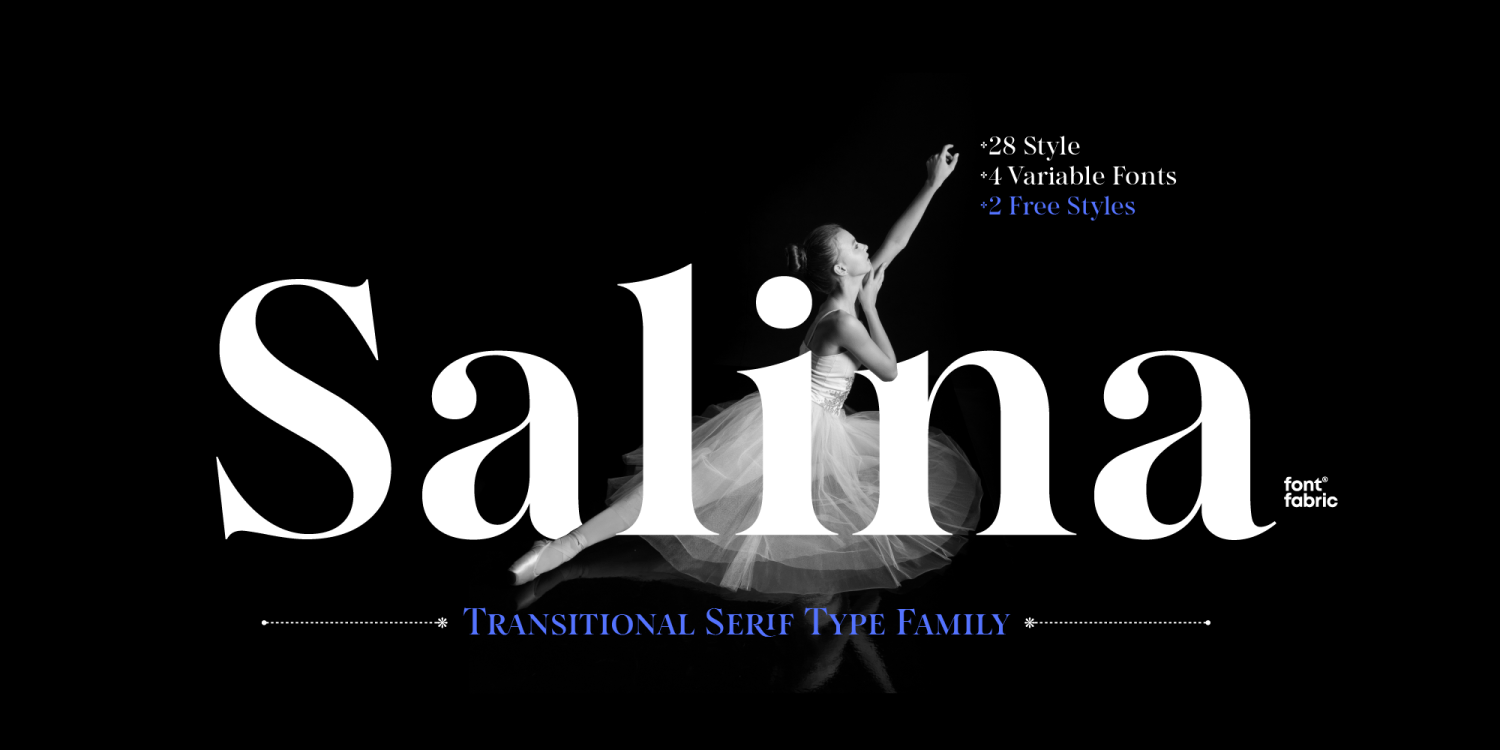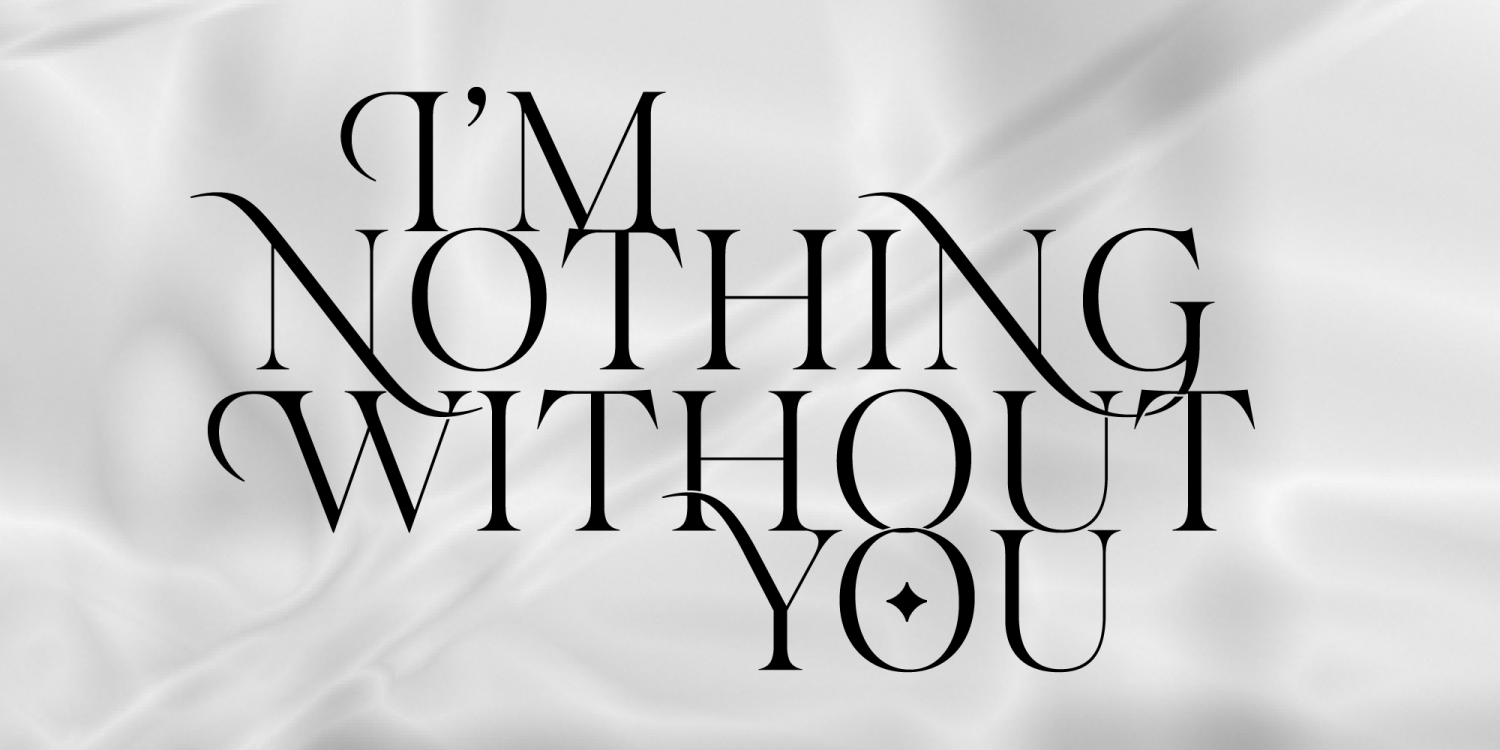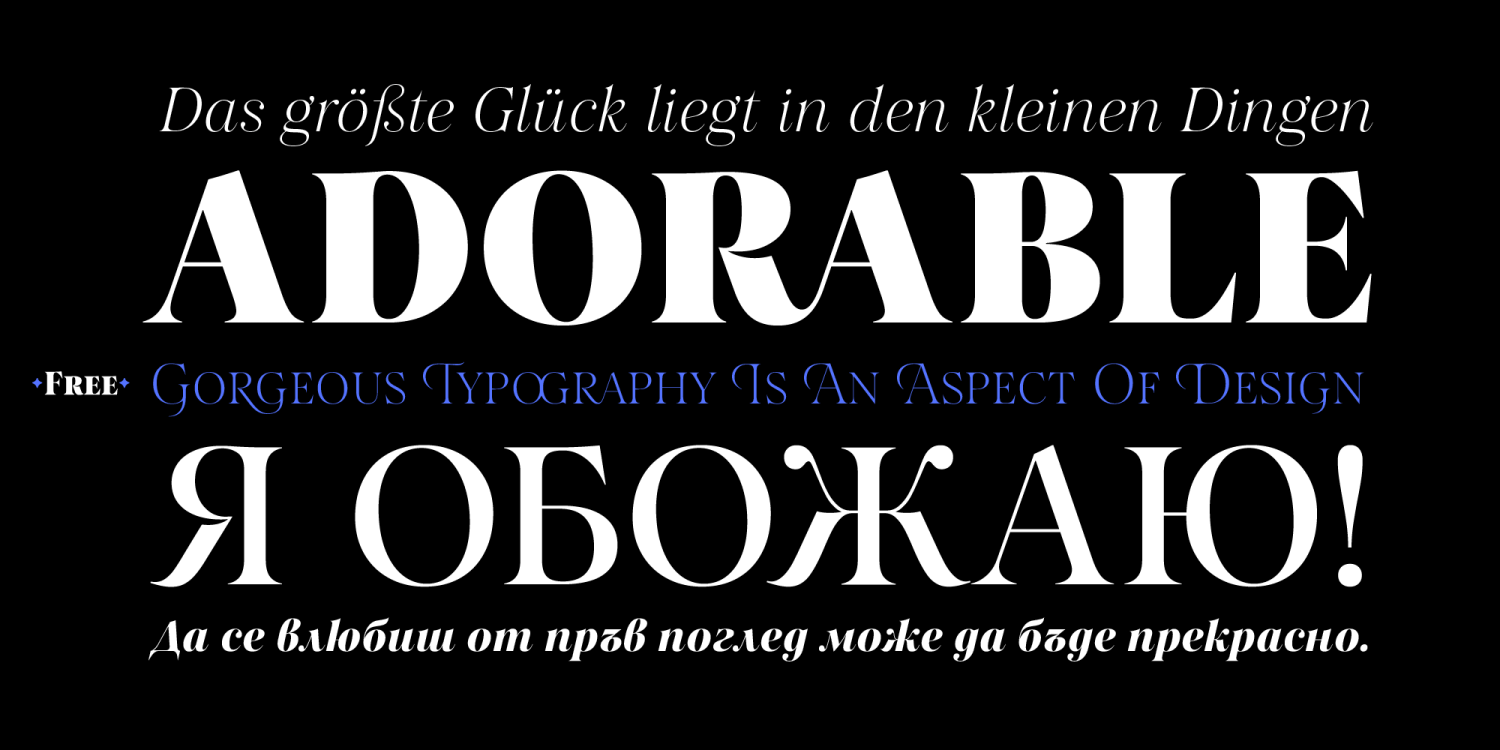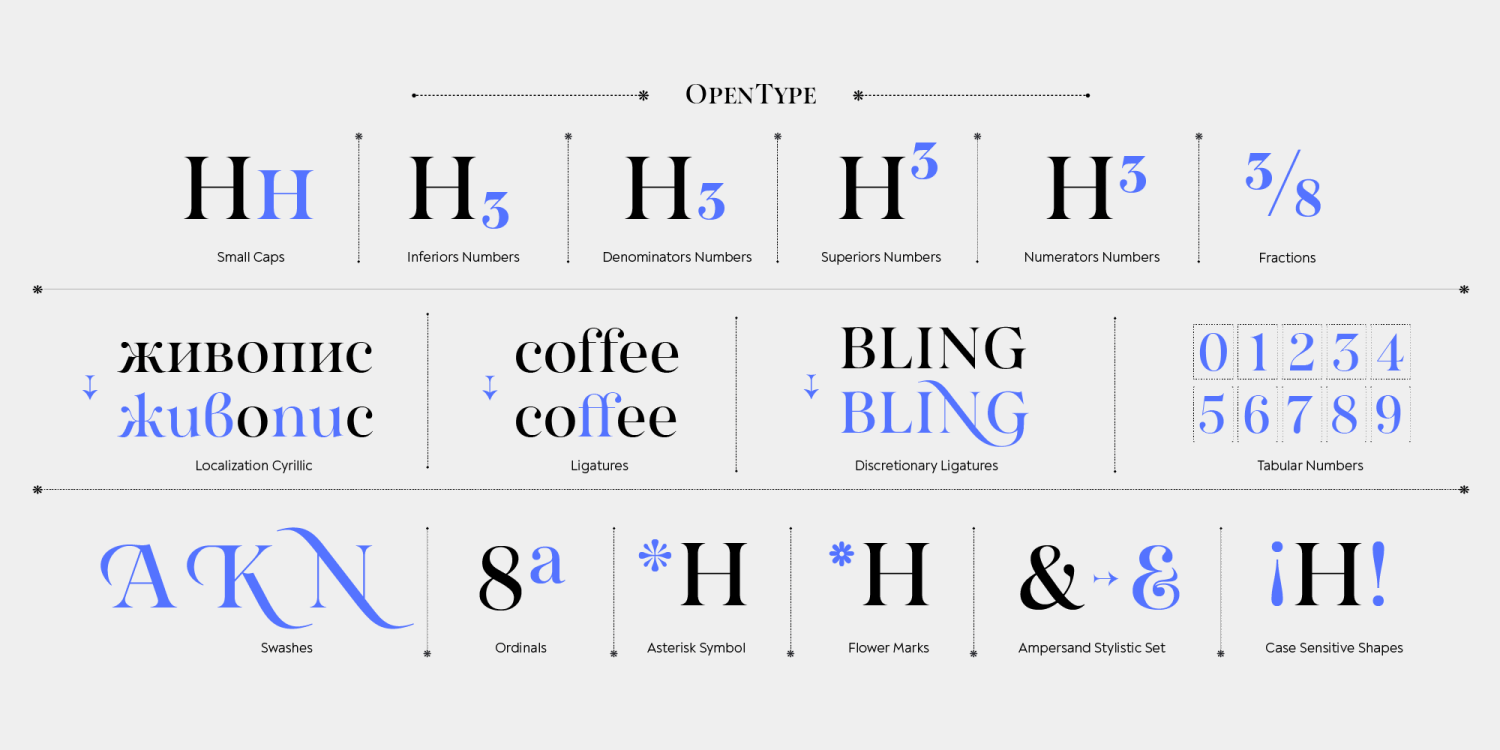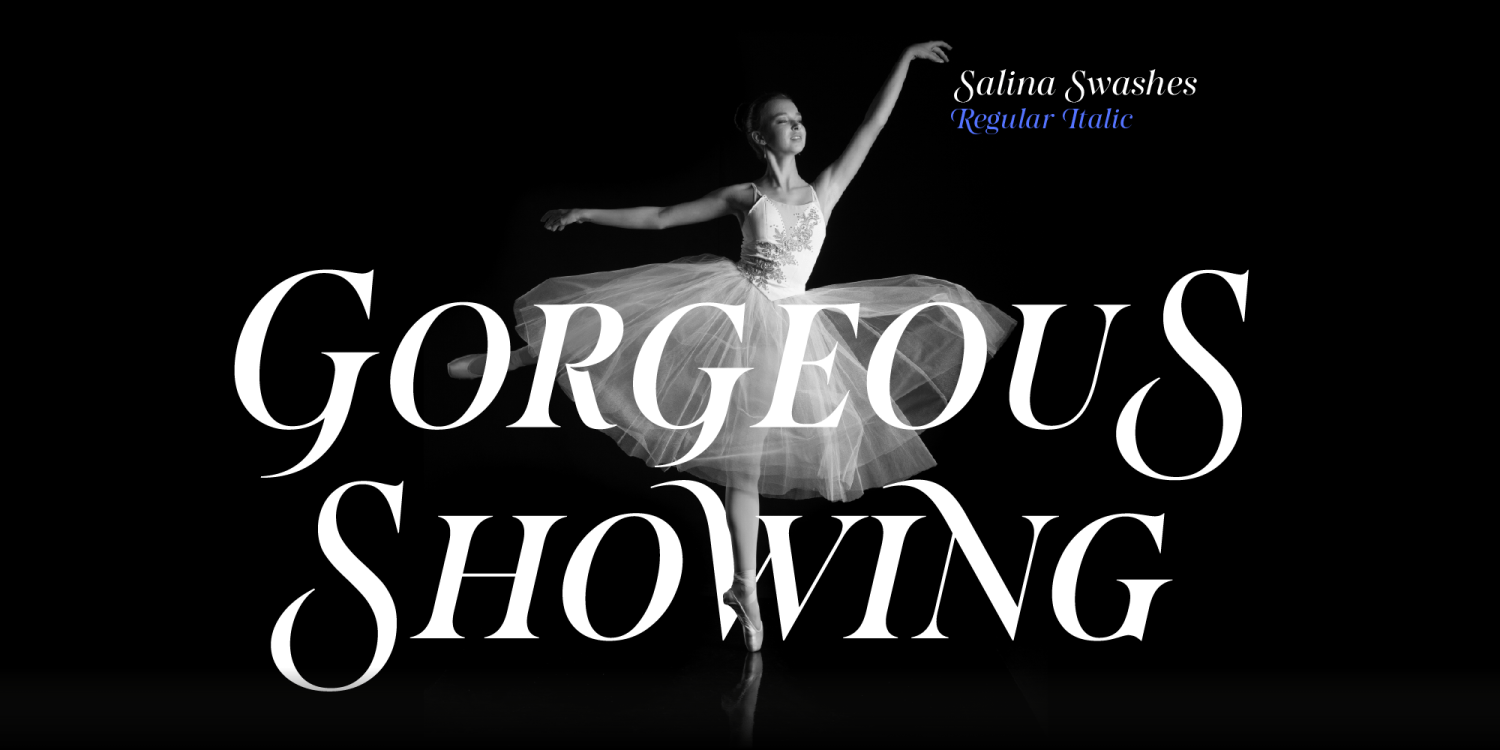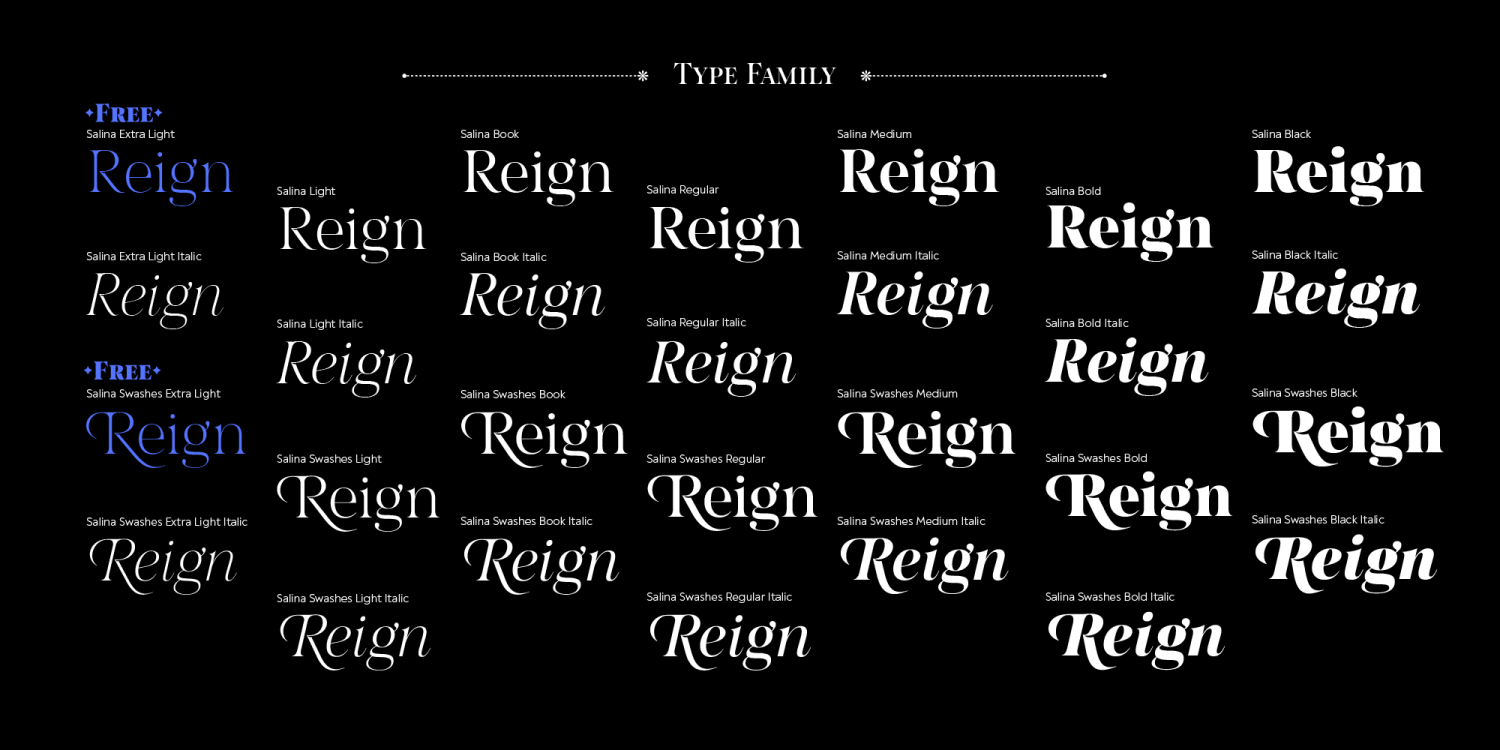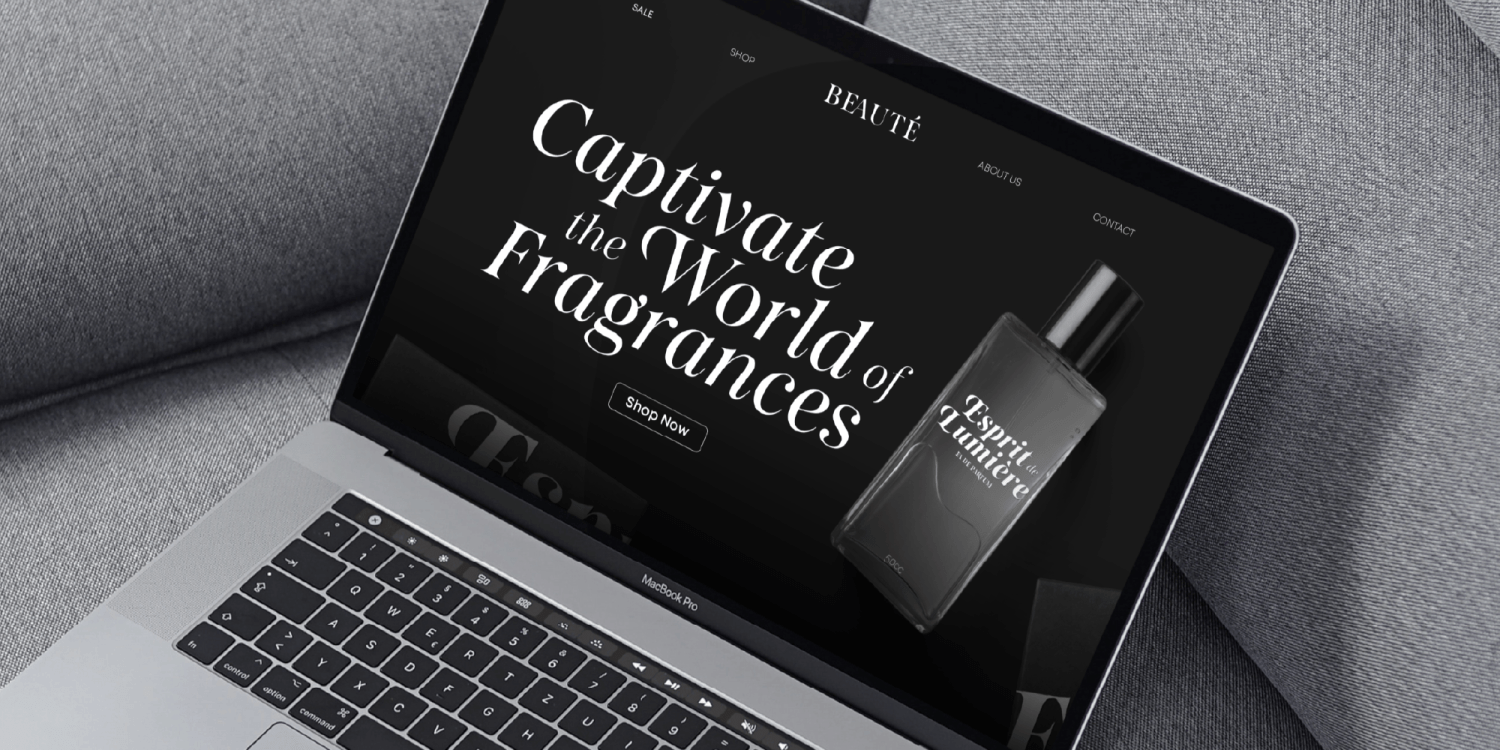
Salina
Buy NowSalina is a modern, high-contrast transitional serif typeface designed by Ivelina Martinova, with creative support from Plamen Motev and Vika Usmanova for Fontfabric. Seamlessly blending contemporary sophistication with timeless elegance, Salina is meticulously crafted to make a strong visual impression—perfect for designers who want their work to exude both flair and refinement.
Why Choose Salina?
Salina is designed for refined, visually striking compositions that demand attention. Its defining features include dramatic contrast between thick and thin strokes, smooth, graceful ovals, round ball terminals, and sharp bracketed serifs. Small caps and swash styles add even more versatility.
With a total of 32 static styles (plus variable fonts), advanced OpenType features, and extensive multilingual support, Salina ensures versatility and high-quality typography for every project. Download Salina today!